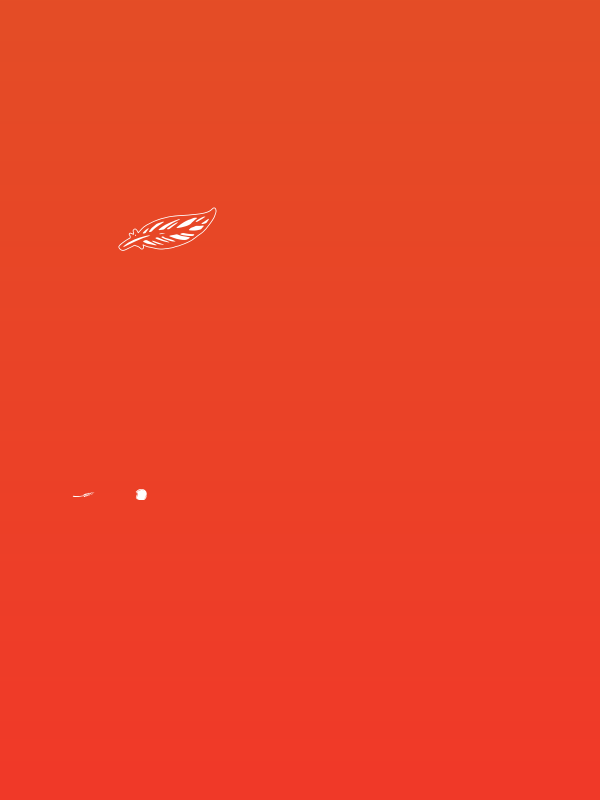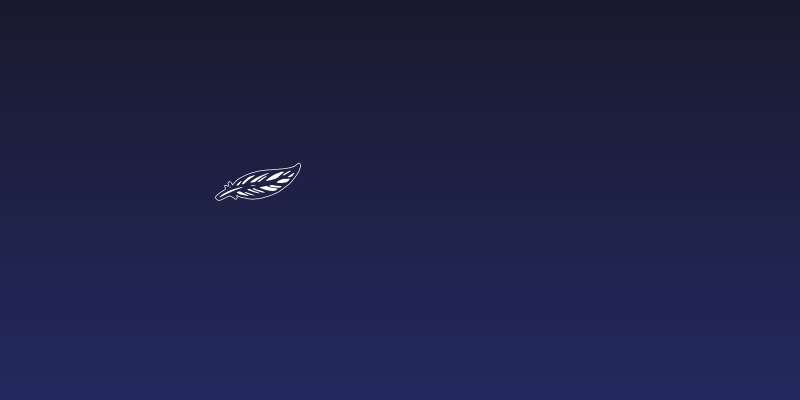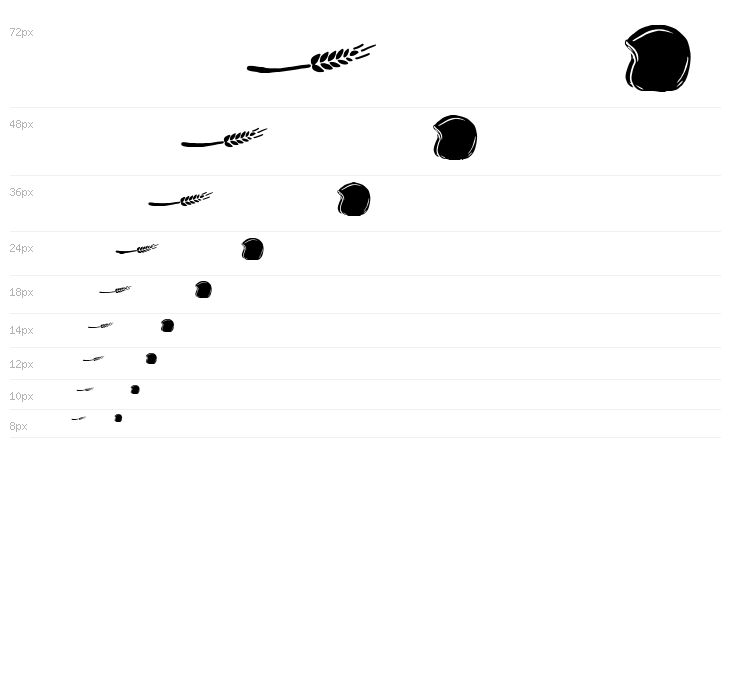
Tervia Extra Demo Font
Tervia Extra Demo Description
A set of hand-drawn, illustrative icons featuring a peach, wheat stalk, and leaf in both outlined and filled styles. The icons have organic, playful lines and a sketch-like appearance.
Overall StyleDecorative, Playful, Organic
Use CaseLogos, Illustrations, Decorative accents
Proposed ProjectsBranding, packaging, organic food labels, children's books, eco-friendly product design.